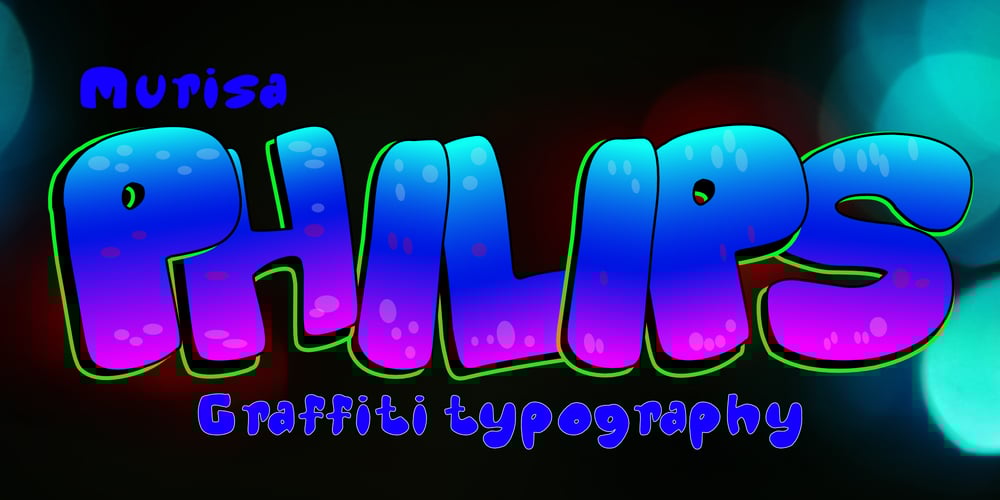
Murisa Philips
Murisa Philips font
Murisa Philips Font Family was designed by Lili Sadili and published by Murisa Studio. Murisa Philips contains 1 styles and family package options. hello, how are you, today we are proud to introduce our newest special font. Murisa Phillips. Judging from its shape, this font is in the graffiti style that we often see on urban walls. We brought it for you. We want you to have a style like that for the products you produce, clothes, logos and others. Trust me, you will love what we have done, so what are you waiting for?.. Get it now here.